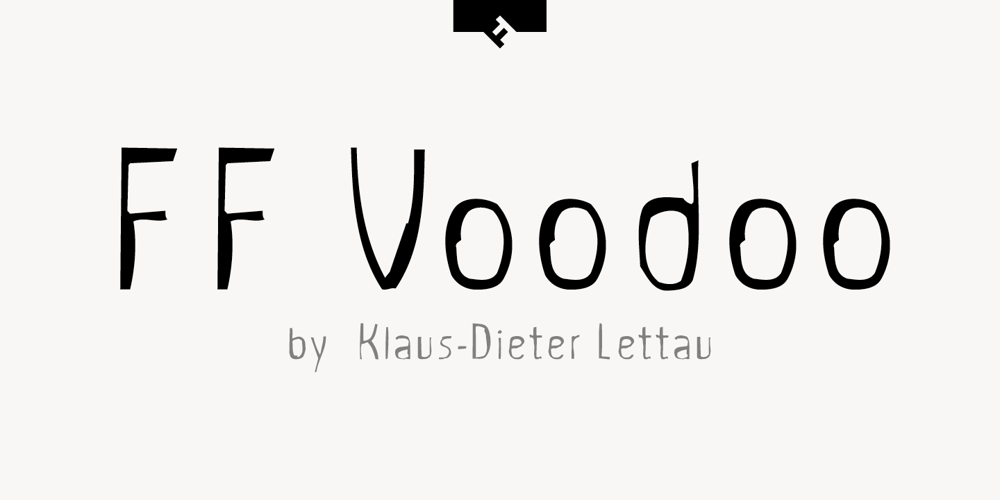
FF Voodoo
FF Voodoo font
FF Voodoo Font Family was designed by Klaus Dieter Lettau and published by FontFont. FF Voodoo contains 2 styles and family package options. German type designer Klaus-Dieter Lettau created this display FontFont in 1995. The family contains 2 weights and is ideally suited for music and nightlife. FF Voodoo provides advanced typographical support with features such as ligatures. It comes with proportional oldstyle and proportional lining figures.